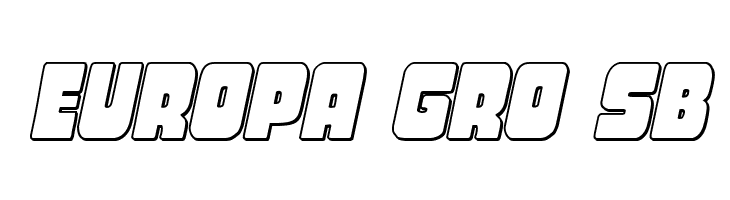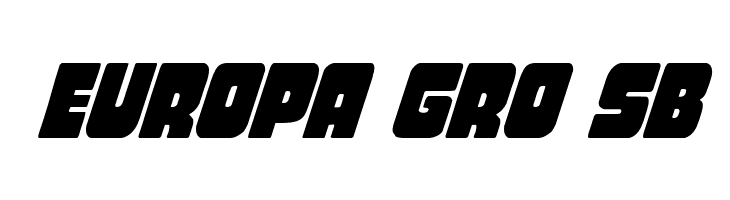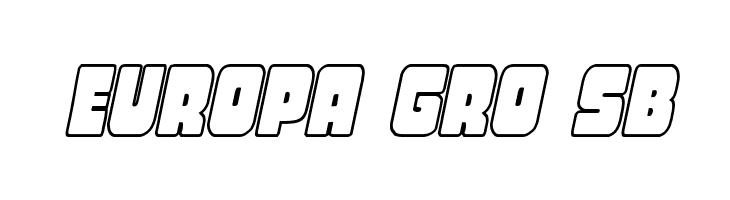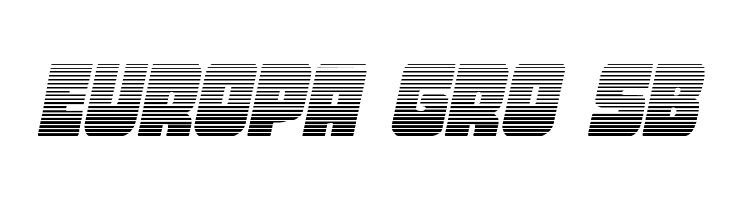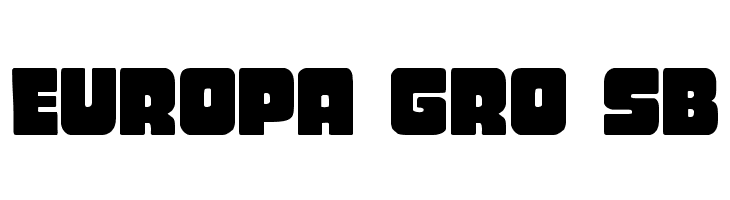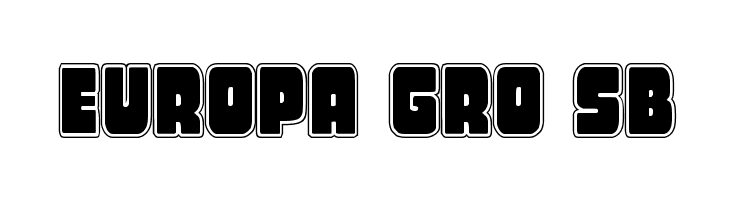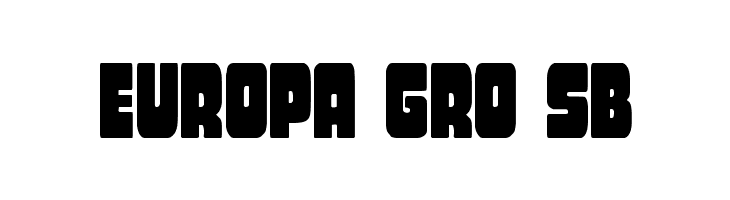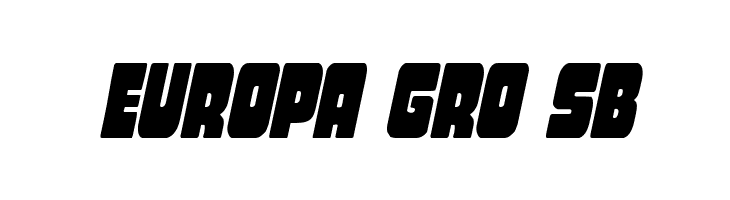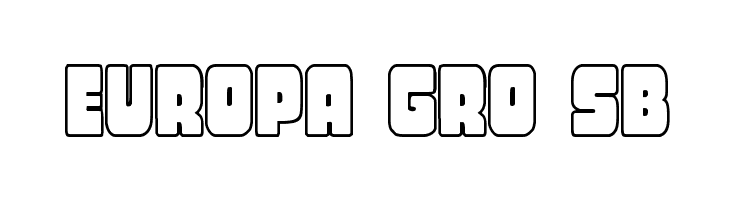
Opus Mundi Expanded Italic Font
A bold, expanded, and italic font with a modern and dynamic style.
Opus Mundi Expanded Font
A bold, blocky font with rounded edges and expanded width for strong visual impact.
Opus Mundi Font
A bold, geometric display font with blocky, rounded letterforms.
Opus Mundi Condensed Font
A bold, condensed font with rounded edges for a strong, modern look.
Opus Mundi Rotalic Font
A bold, slanted font with thick strokes and angular shapes, exuding energy and impact.
Opus Mundi Super-Italic Font
A bold, italic font with a dynamic and modern style.
Opus Mundi Italic Font
Bold, italicized font with strong, impactful characters and high contrast.
Opus Mundi Semi-Italic Font
A bold, geometric font with a semi-italic slant and strong, consistent strokes.
Opus Mundi Condensed Italic Font
A bold, condensed italic font with a modern and dynamic style.
Opus Mundi Academy Italic Font
A bold, outlined font with a dynamic, italicized style.
Opus Mundi Gradient Italic Font
A bold, italicized font with a gradient effect and dynamic, modern style.
Opus Mundi 3D Font
A bold, 3D geometric font with thick outlines and a uniform blocky style.
Opus Mundi Leftalic Font
A bold, dynamic font with thick, slanted characters and high contrast.
Opus Mundi Rotated Font
A bold, blocky font with a playful and impactful style.
Opus Mundi Gradient Font
A bold, decorative font with a gradient effect created by horizontal lines.
Opus Mundi Outline Font
A bold, outlined font with a modern, geometric style.
Opus Mundi Academy Font
A bold, outlined font with a strong, geometric design.
Opus Mundi Outline Italic Font